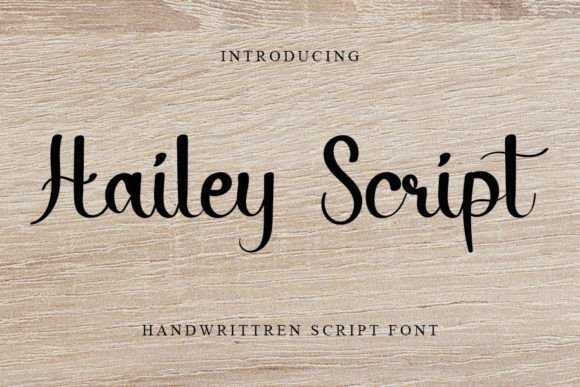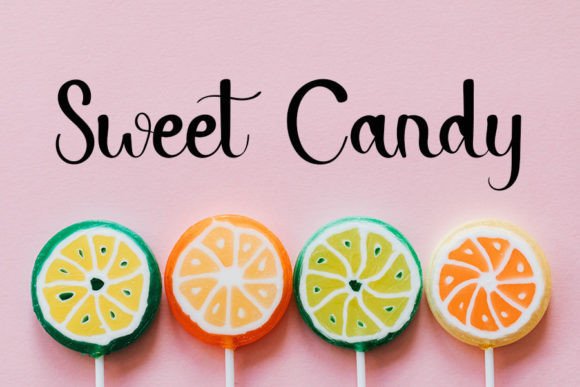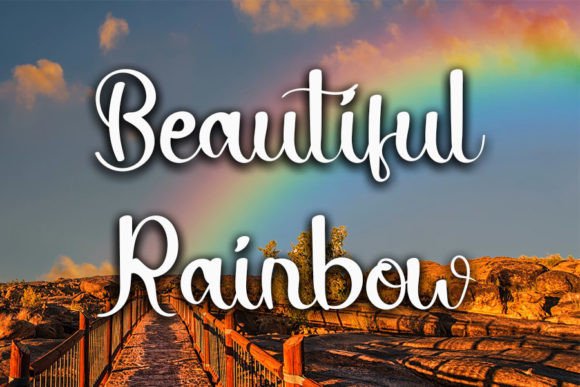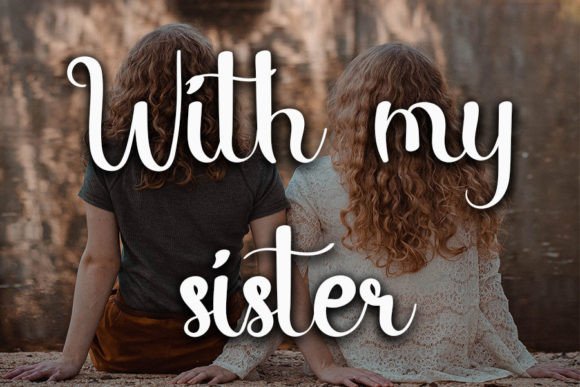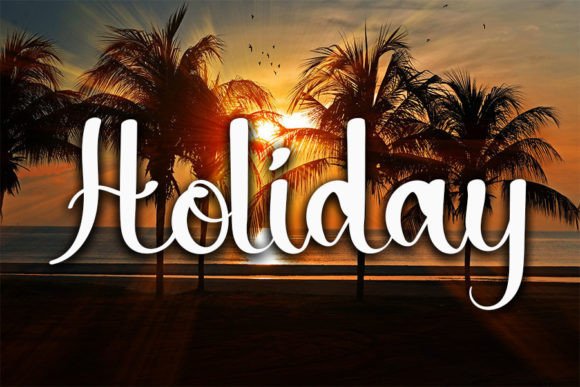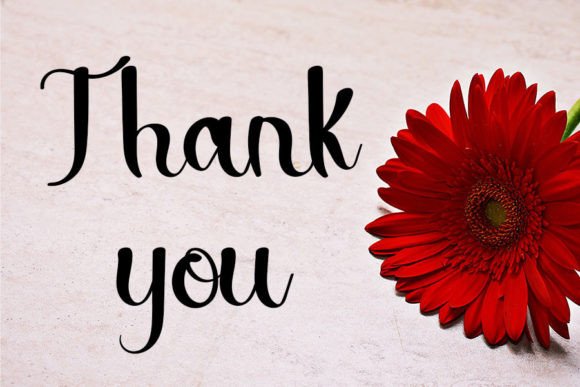
Hailey Script Font
About Hailey Script Font
**Hailey Script: A Colorful Handwritten Font with Elegance**
Introducing **Hailey Script**, a vibrant handwritten font that effortlessly blends elegance with a touch of whimsy. With its clean lines and a hint of quirkiness, this font is a versatile choice that adds a unique personality to your creative endeavors.
**Hailey Script** stands out with its colorful and lively characters, creating a sense of vibrancy and originality. It’s the perfect fit for a wide range of applications, making it a go-to choice for logos, branding materials, social media posts, and all your crafty DIY projects.
The font’s elegance shines through in its meticulously crafted letterforms, ensuring your designs maintain a sense of sophistication while embracing a playful side. The combination of clean lines and a touch of quirkiness makes **Hailey Script** a standout choice for any project.
For logos and branding, this font adds a burst of personality and color, helping your brand establish a memorable and unique identity. Its versatility allows it to adapt to various industries and styles, making it a valuable asset for any business.
**Hailey Script** is equally at home on social media platforms. It adds a touch of vibrancy to your posts, ensuring your content stands out in the digital landscape and engages your audience effectively.
Crafty DIY projects find new life with the addition of this font. Whether you’re creating handmade cards, personalized gifts, or other creative ventures, **Hailey Script** infuses them with a sense of charm and creativity.
In summary, **Hailey Script** is more than just a font; it’s a creative tool that brings a burst of color, elegance, and originality to your projects. Whether you’re designing for branding, social media, or crafting, choose **Hailey Script** to infuse your work with its unique personality and make a lasting impression. Embrace its vibrant and quirky charm and let your creativity flourish.